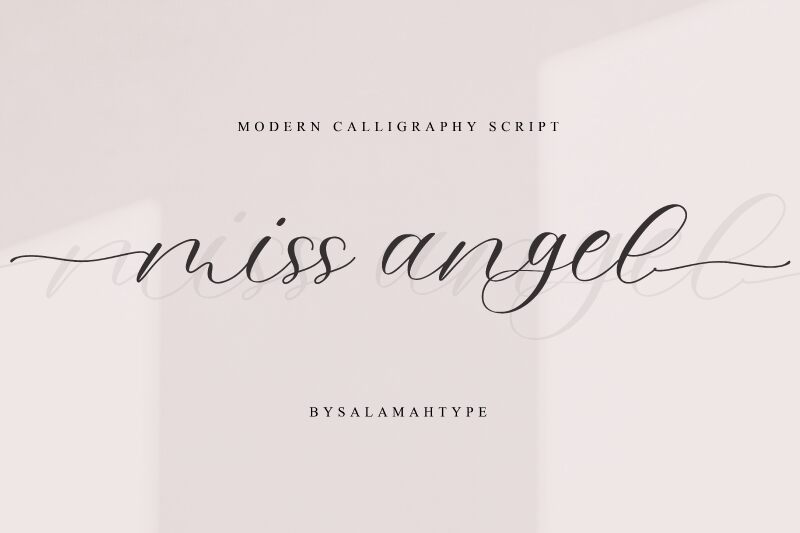
miss angel
Miss Angel, a mesmerizing creation by Salamahtype.com, is a delicate yet captivating calligraphy font.
Its semi-light weight adds an elegant touch to any project, making it perfect for wedding invitations and romantic stationery. The graceful curves and flowing strokes of Miss Angel bring sophistication to branding materials and fashion editorials. With its ethereal charm, this font also finds its place in inspirational quote designs and social media graphics that aim to evoke emotions.
Crafted with utmost care, Miss Angel is your go-to choice for projects that require an enchanting and refined typeface.